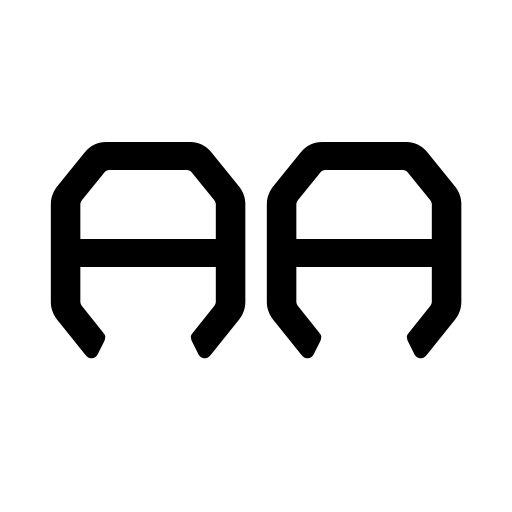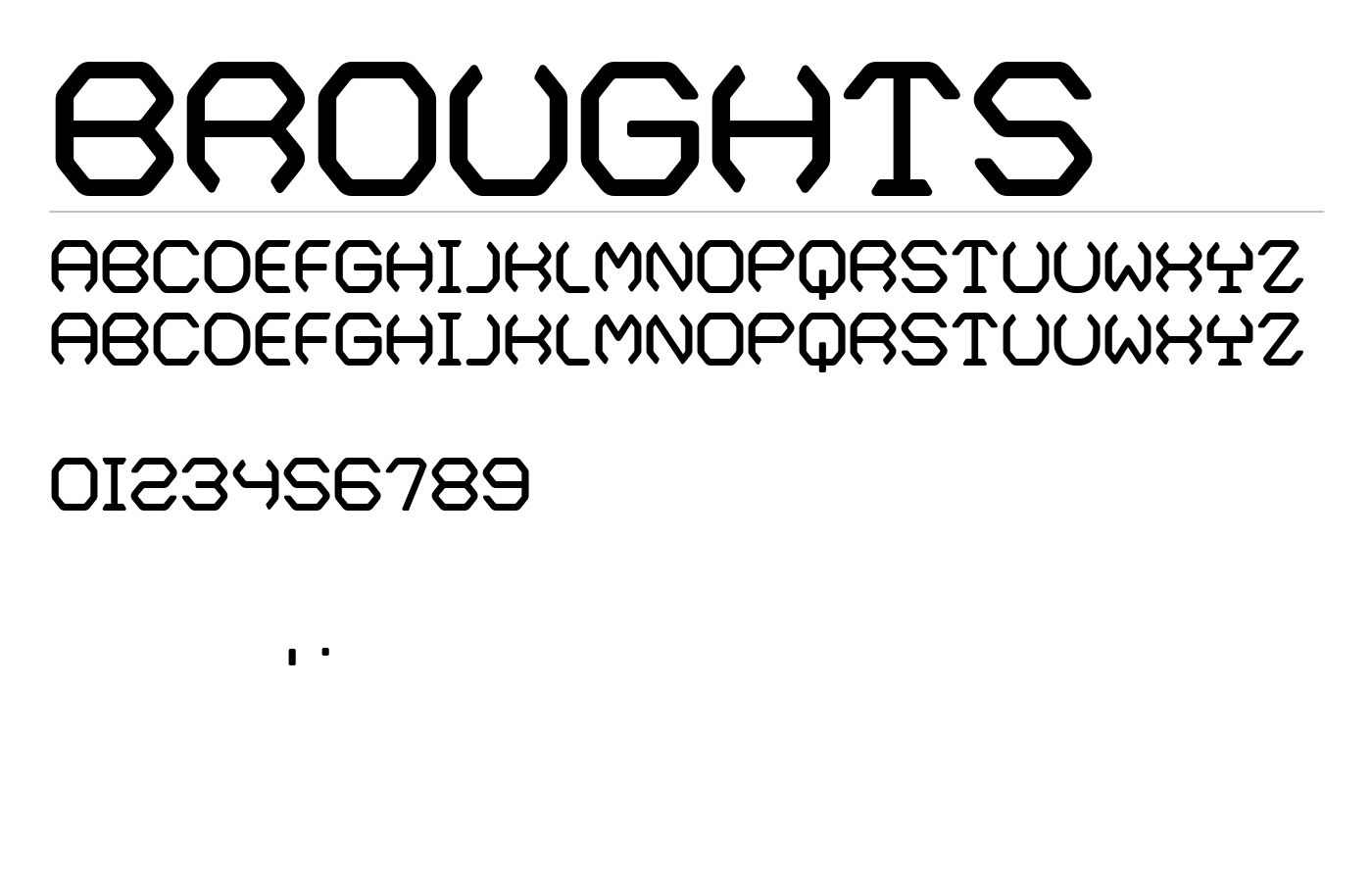
Broughts is a modern, geometric sans serif font with a technical and futuristic vibe. Its bold, angular strokes and uniform weight create a striking and edgy appearance, making it ideal for tech branding, posters, and headlines that need a strong, contemporary look. The font’s unique structural details and consistent spacing give it a distinct personality that works well in designs seeking a modern, innovative feel.
Broughts Font
About Broughts Font